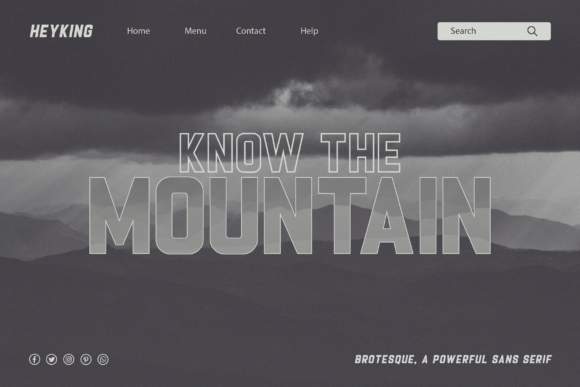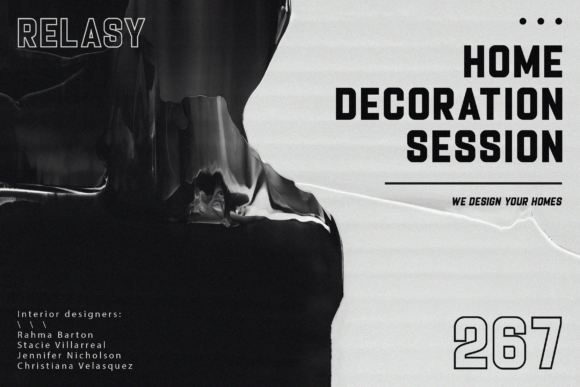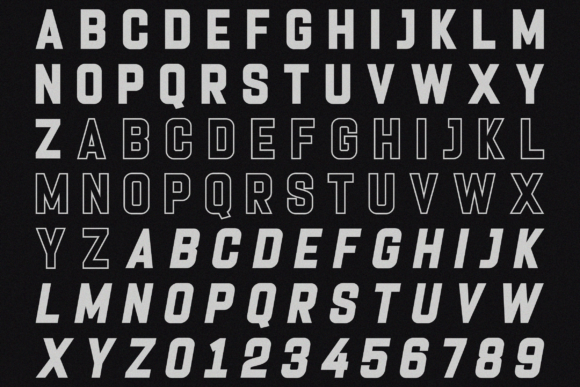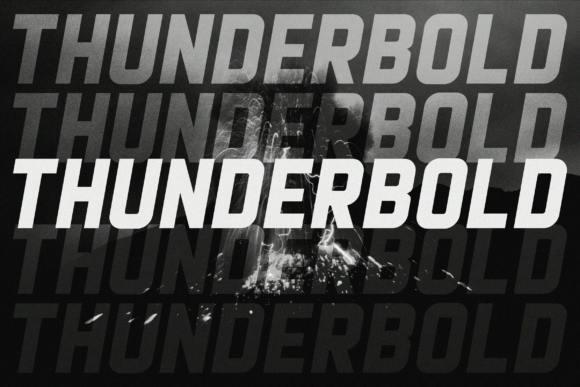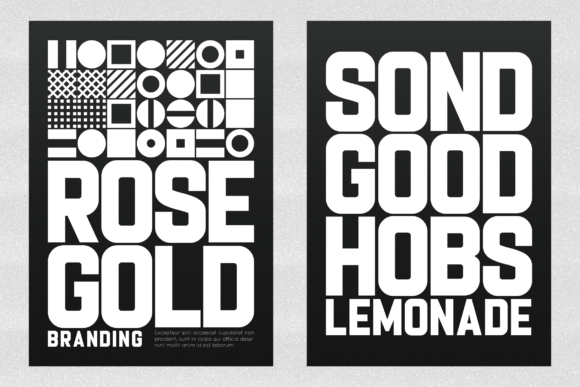
The Perfect Design Element: Unlocking the Power of Brotesque Font
You’ve spent hours perfecting your design, and it’s finally coming together. The colors, the layout, the images – everything is just right. But something’s missing. A spark of creativity that sets your design apart from the rest. That’s where the Brotesque Font comes in – a fun and playful display font that adds a touch of whimsy to any project.
Designed to make a statement, Brotesque Font is perfect for magazine covers, headers, invitations, book covers, and logos. With its uppercase alphabet, numbers, and symbols, the possibilities are endless. As a designer, you know how valuable a versatile font can be – and Brotesque Font delivers. Whether you’re working on a personal project or a client’s brand identity, this font is sure to bring your design to life.
Brotesque Font Key Features
- Font Family: Brotesque, Brotesque Bold, Brotesque Condensed Bold, Brotesque Extra Condensed Bold, Brotesque Semi Condensed Bold
- Size: Available in 8 different weights (Light, Thin, Regular, Medium, Demi, Semi Bold, Bold, Extra Bold)
- Resolution: Supports high-resolution displays (up to 300 DPI)
- Unique Characteristics: Designed to be highly legible and versatile, making it suitable for a wide range of applications, from body text to display use.
- Language Support: Supports over 200 languages, including Latin, Cyrillic, Greek, and many others.
Brotesque Font Review
Overall, I have mixed feelings about the Brotesque Font. On one hand, it has some unique qualities that make it stand out.
- Distinctive style: Brotesque Font has a distinctive, quirky feel that can add character to certain designs.
- Legibility: Despite its unconventional style, the font is surprisingly easy to read, especially at larger sizes.
- Wide language support: Brotesque Font supports a wide range of languages, making it a good choice for multilingual projects.
- Not suitable for all designs: The font’s quirky style may not be suitable for more formal or conservative designs.
- Limited availability in certain weights: Some weights of the font, such as bold and italic, may not be available in all styles.
- Can be overwhelming: The font’s distinctive style can be overwhelming if used in excess, so it’s best to use it sparingly.
Overall, I think Brotesque Font is a solid choice for designers looking for a unique and legible font. However, it may not be the best fit for every project, and its limitations should be carefully considered.
Tips: Use Brotesque for headings and subheadings to create a striking contrast with your content.
Tips: Use Brotesque for titles and headings to add a touch of elegance to your designs.
Tips: Use Brotesque for headings and subheadings to create a professional and modern look.
Brotesque font is ideal for:
- Designing luxury and high-end products.
- Creating modern and minimalist layouts.
- Adding a touch of elegance to your content.